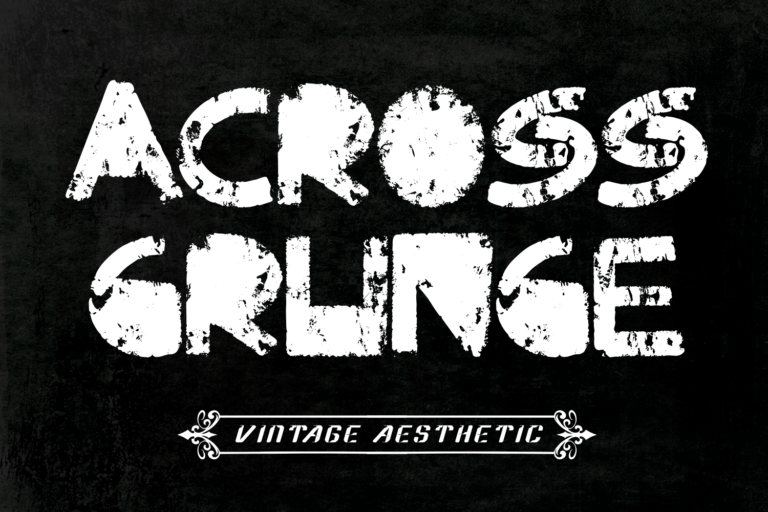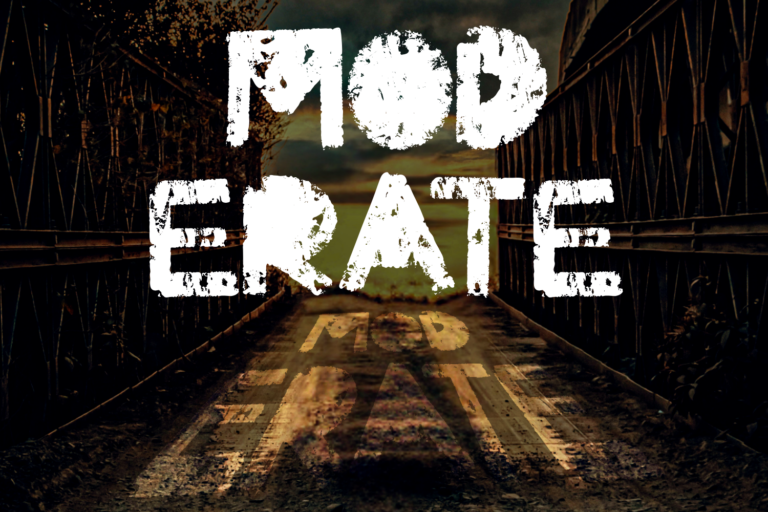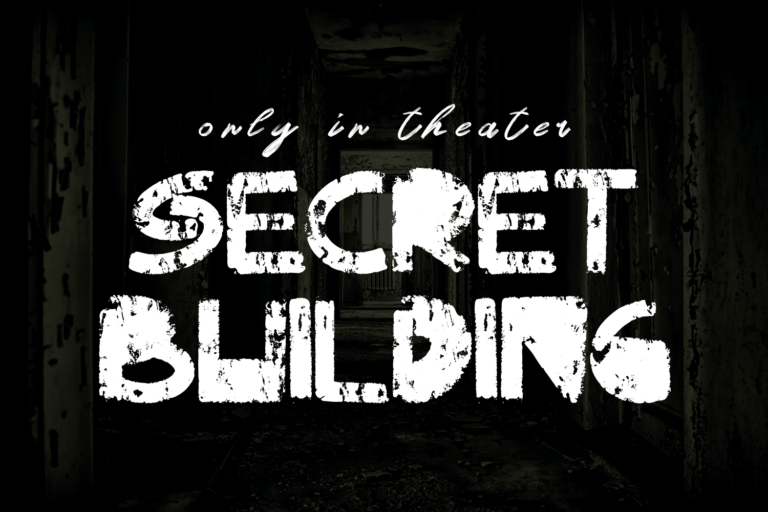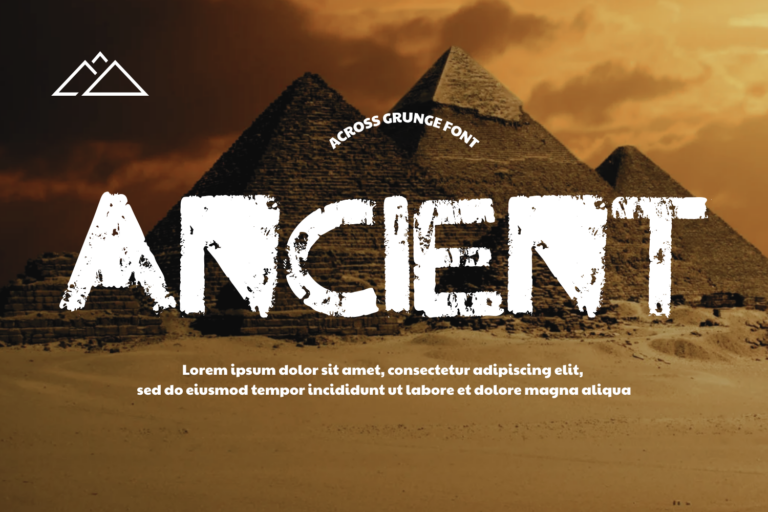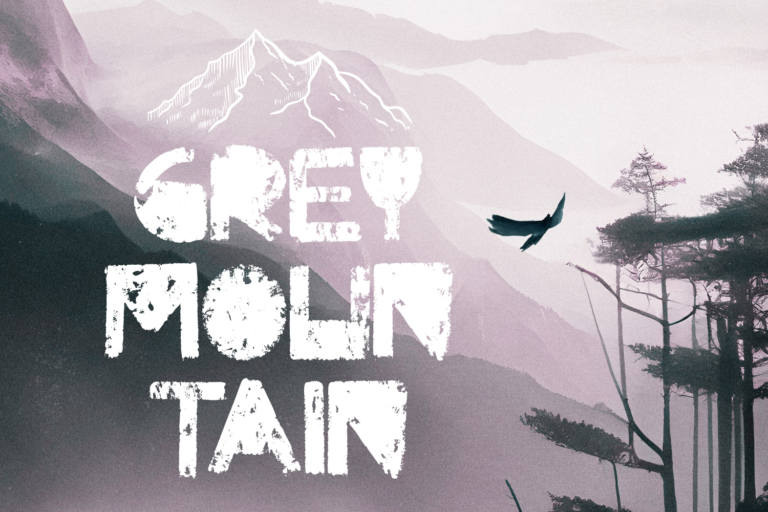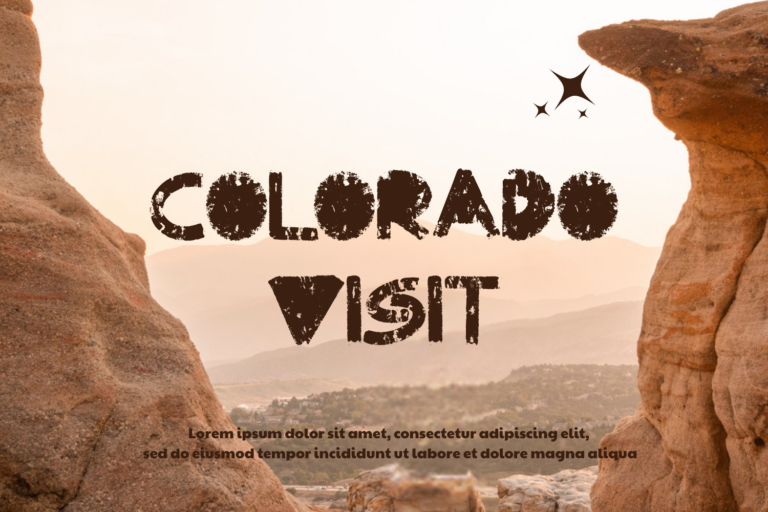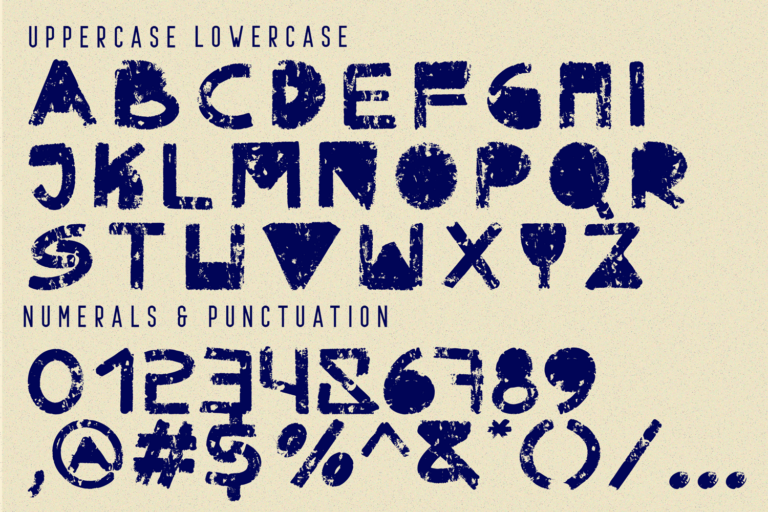
Across Grunge Font is a bold grunge display font that brings raw energy and a sense of rebellion to your designs. Featuring a distressed, eroded texture with jagged edges and uneven fills, this font is perfect for capturing the spirit of underground movements, punk posters, album covers, or anything that screams “anti-polish.”
Every letter in Across Grunge looks like it has been scraped, scratched, or worn by time—making it ideal for urban artwork, vintage horror, or DIY zine aesthetics. This font is not about perfection; it’s about attitude.
Across Grunge Font